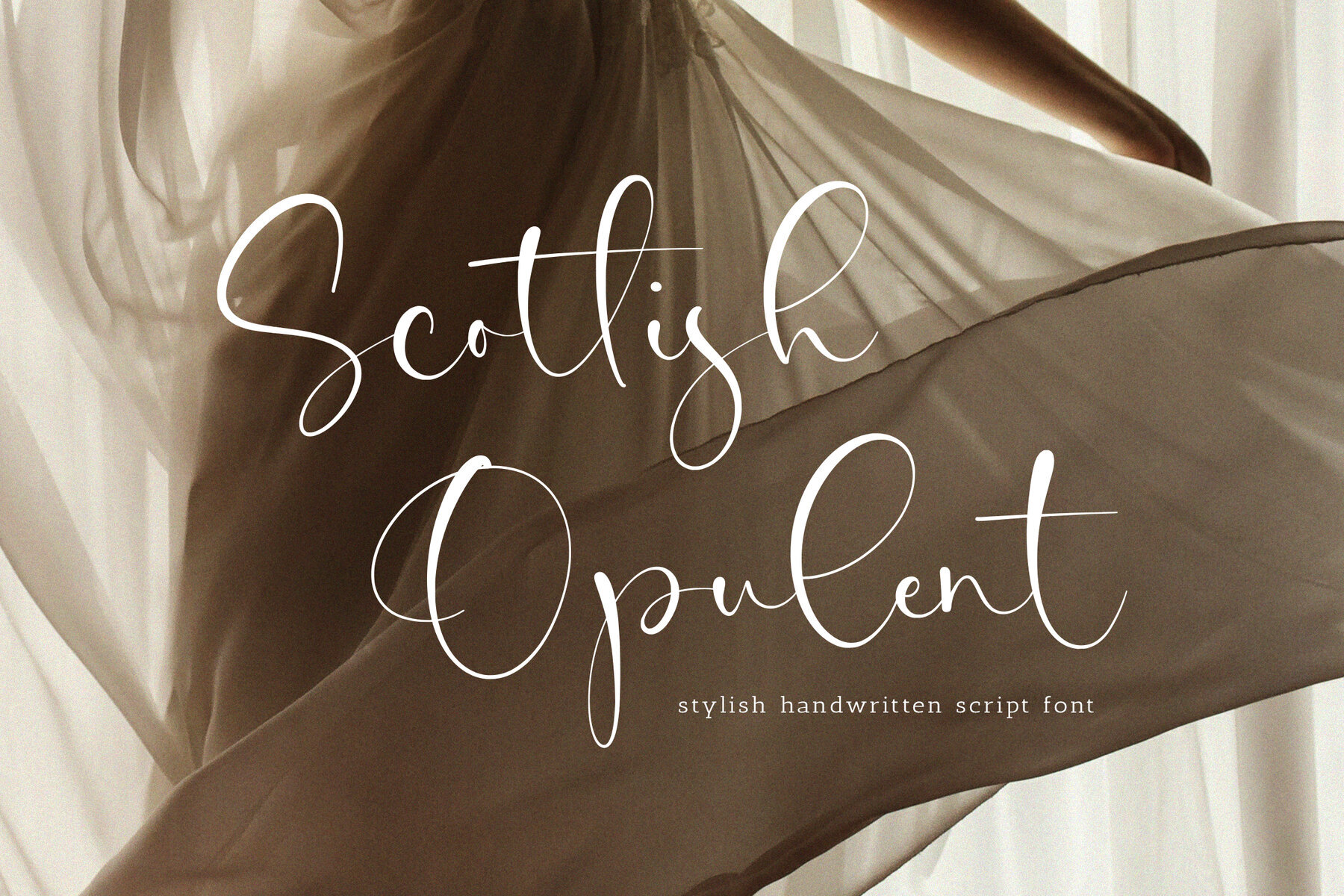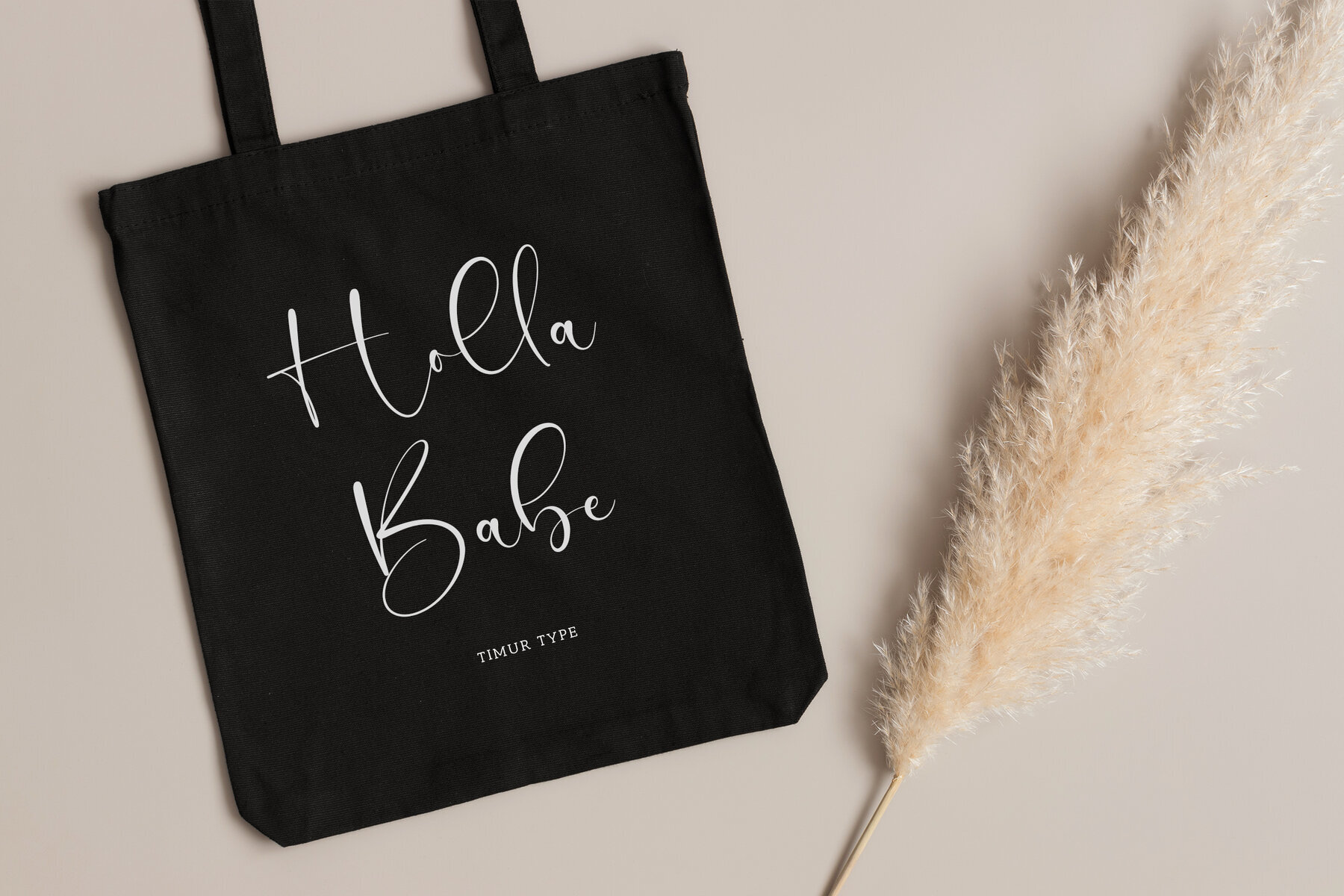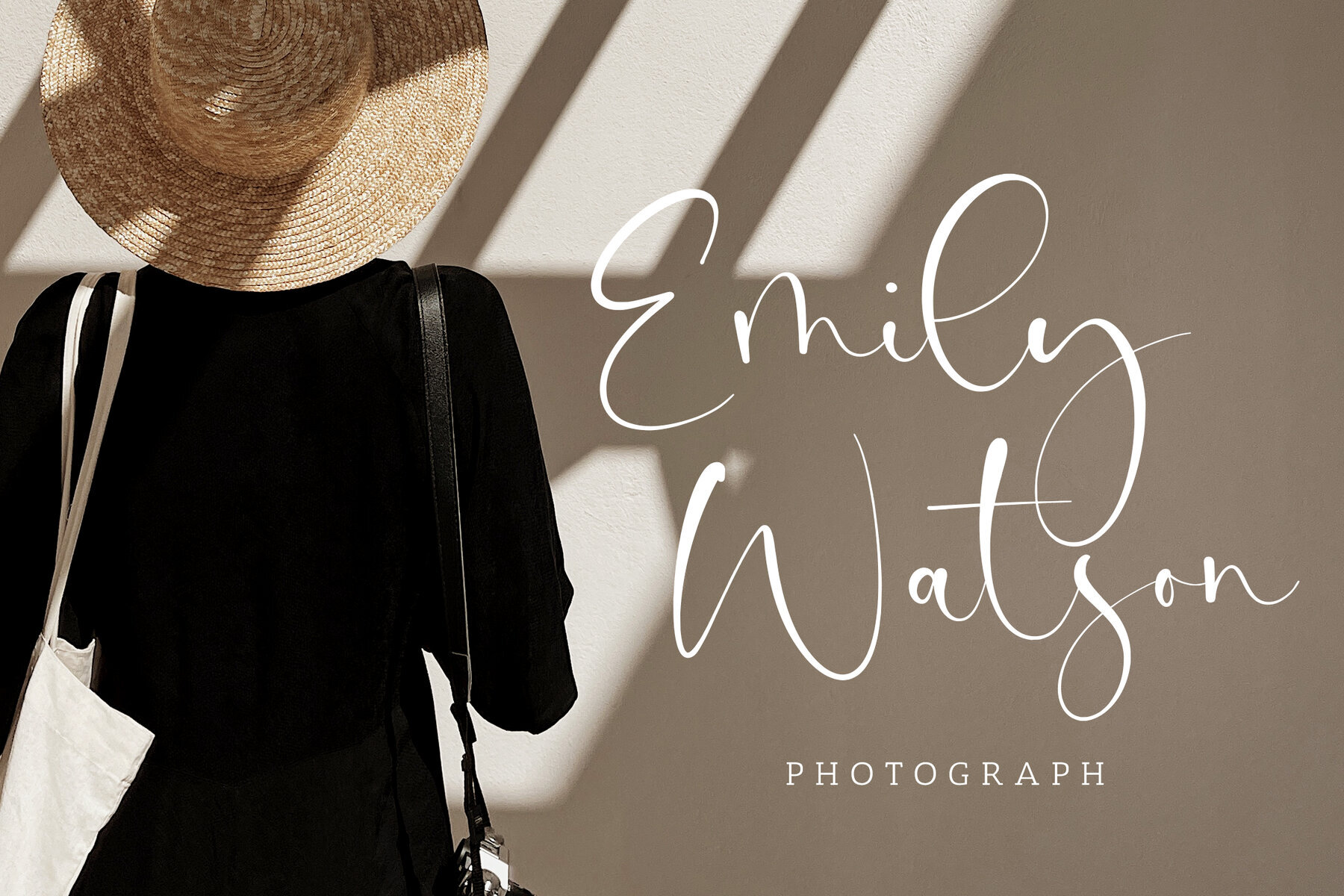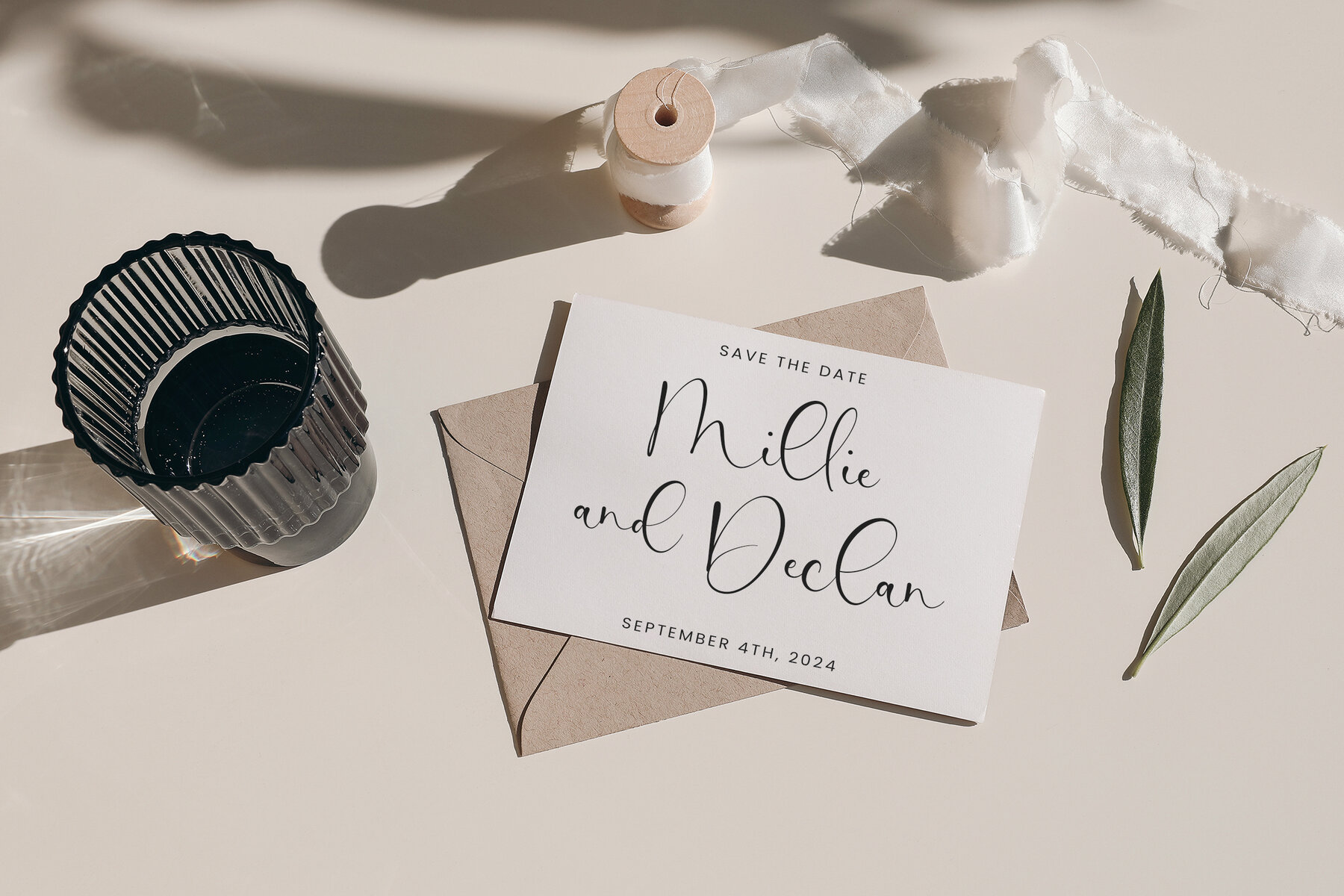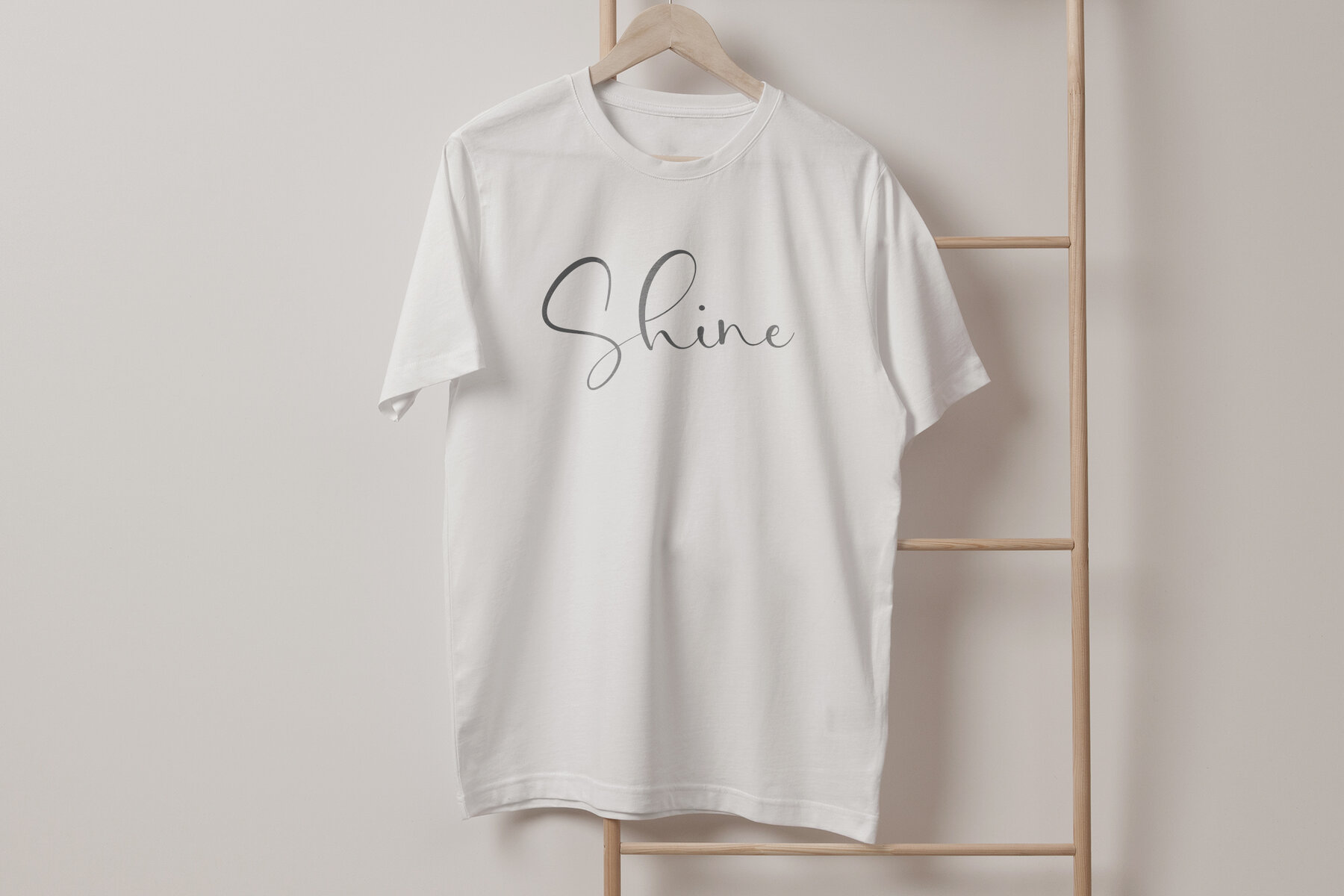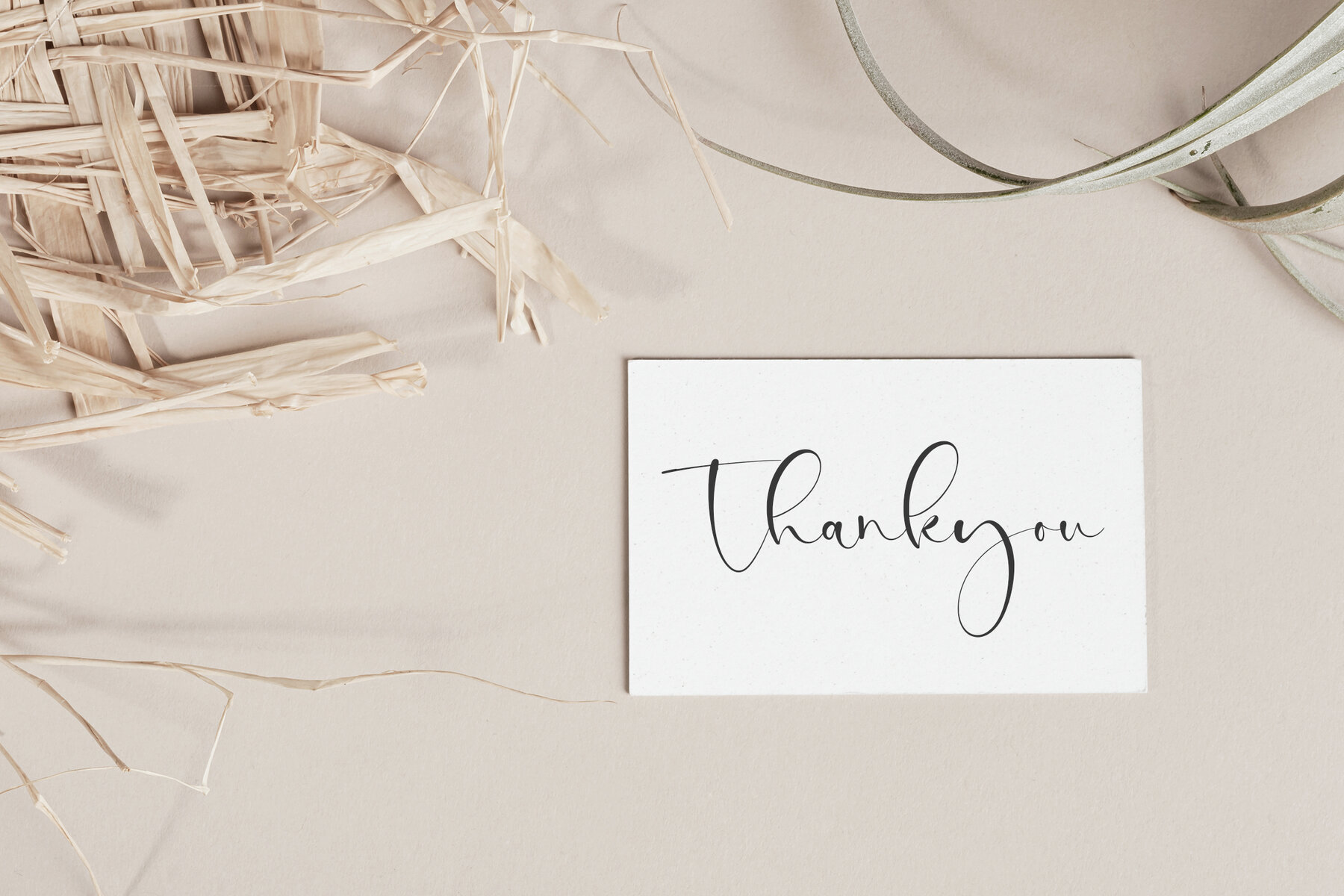
Scottish Opulent Font
Scottish Opulent
Scottish Opulent is a stylish handwritten script font that is modern and fresh, and will bring a warm and inviting feel to your business. Take advantage of the fonts and experience the magic for yourself. Scottish Opulent is perfect for product packaging, branding project, megazine, social media, wedding, or just used to express words above the background.